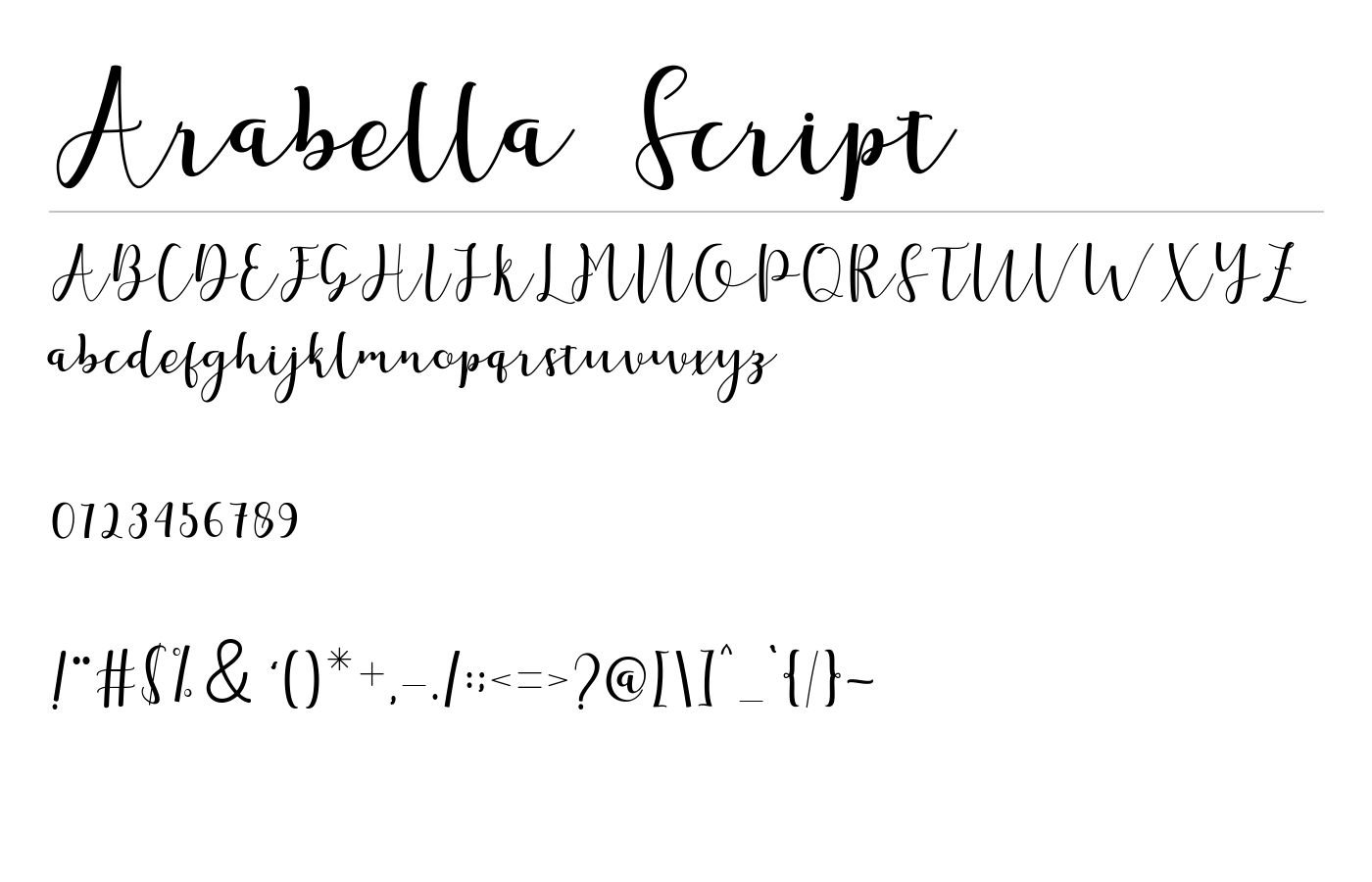
Arabella Script is a delicate and elegant script font with fluid, hand-lettered strokes that convey a sense of sophistication and charm. Its thin, graceful letterforms and subtle variations in stroke weight make it perfect for wedding invitations, branding, and editorial projects that seek a refined, romantic touch. This font works beautifully in headlines and decorative uses where a personal, stylish feel is desired.
Arabella Script Font